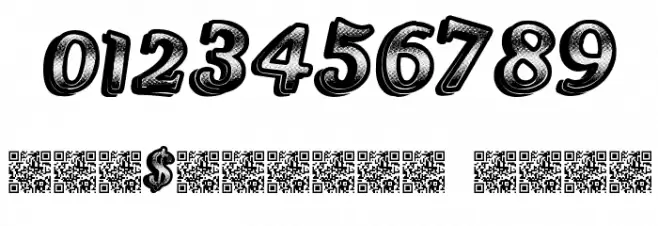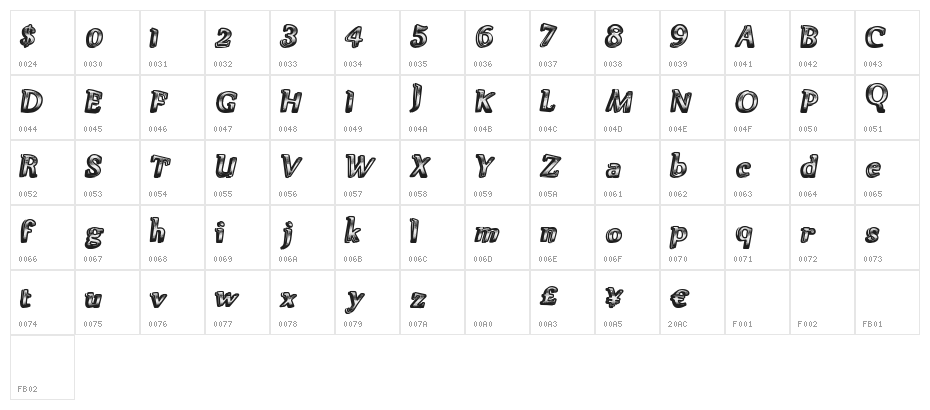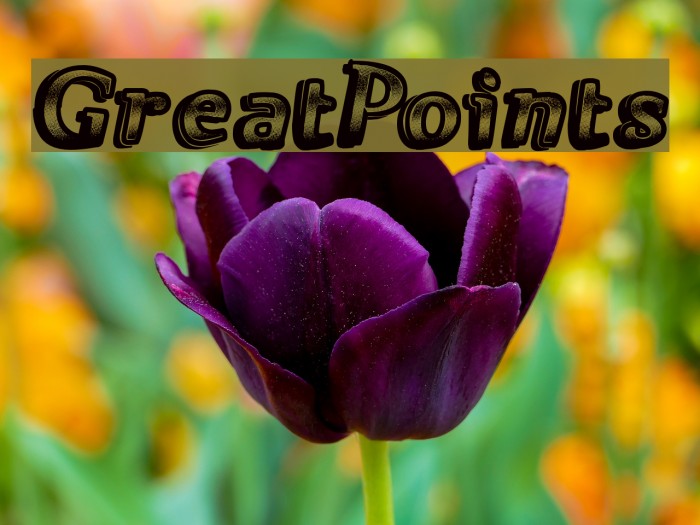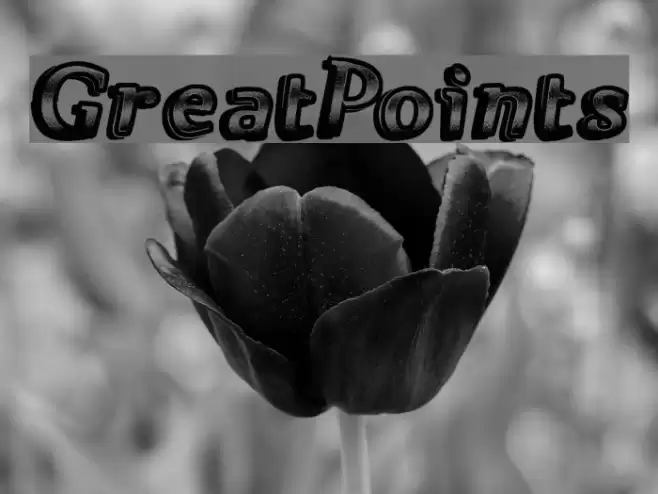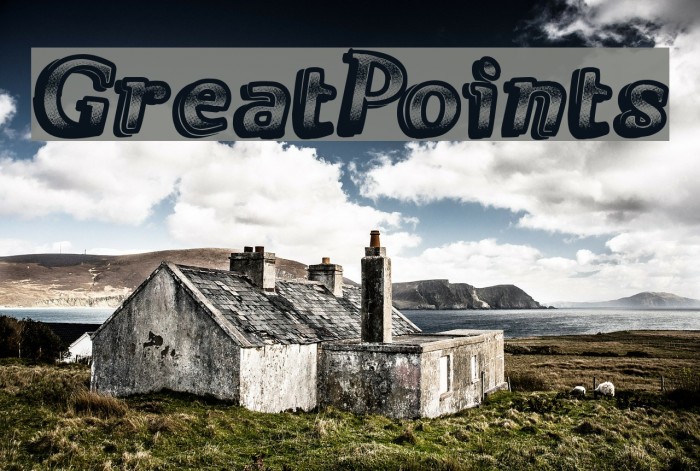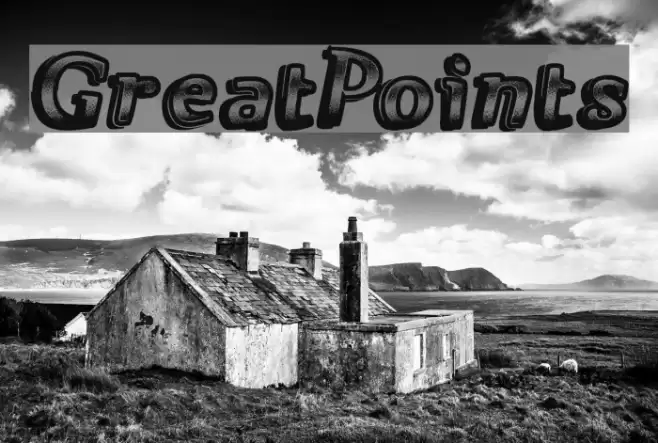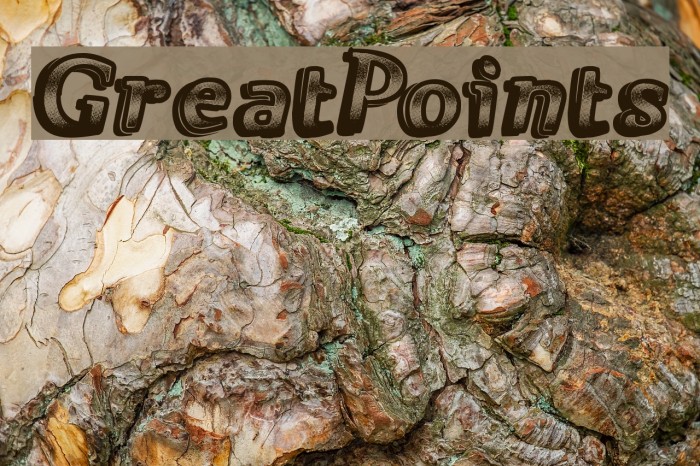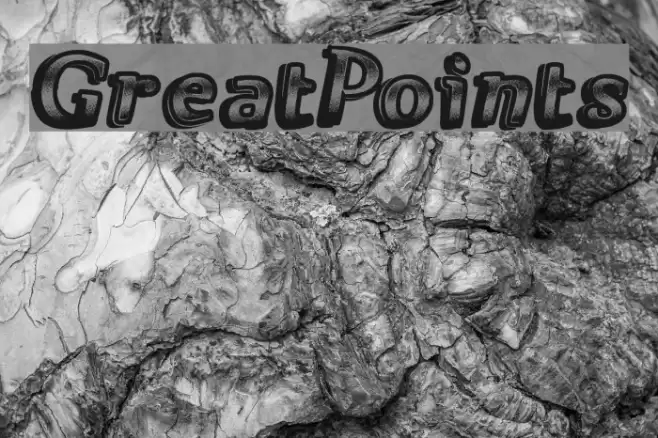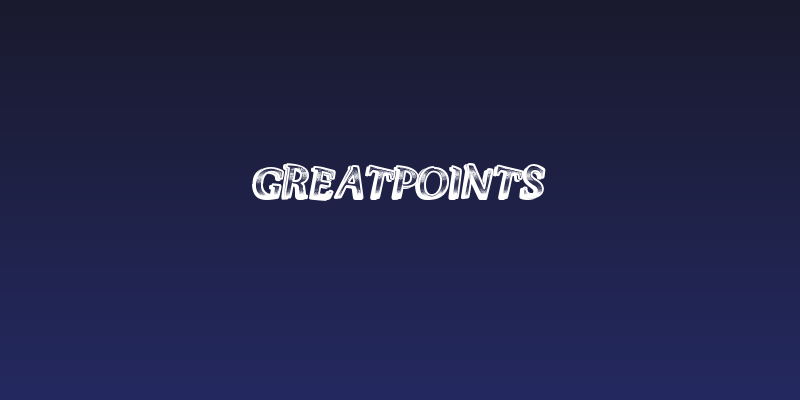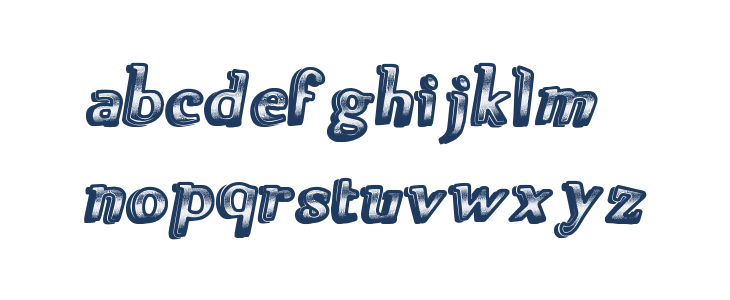
GreatPoints Font
GreatPoints Description
This font features a bold and dynamic style with a playful, decorative flair. Each character is outlined with a thick, shadow-like effect that gives it a three-dimensional appearance. The letters are slightly slanted, adding a sense of movement and energy. The strokes are consistent in width, creating a uniform look across all characters. The font includes both uppercase and lowercase letters, numerals, and a selection of special characters. Its unique design makes it stand out, making it ideal for eye-catching headlines or creative projects.
| Proposed Projects | Ideal for posters, headlines, branding, and creative design projects that require a bold and playful touch. |